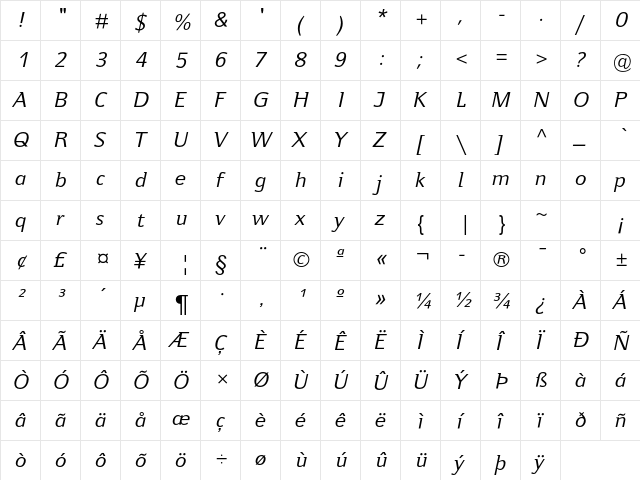
Jeunesse Std Italic
Jeunesse Std Italic Font Details
Design Context for Jeunesse Std Typeface
Jeunesse Std takes a measured approach to typography — its balanced proportions and neutral character make it a reliable workhorse for both digital and print work. The dynamic lean of this cut emphasises speed and emphasis in any layout.
Pro Tip: Try Jeunesse Std for annotation and caption copy alongside an upright companion — the contrast in angle creates a dynamic but ordered typographic system.